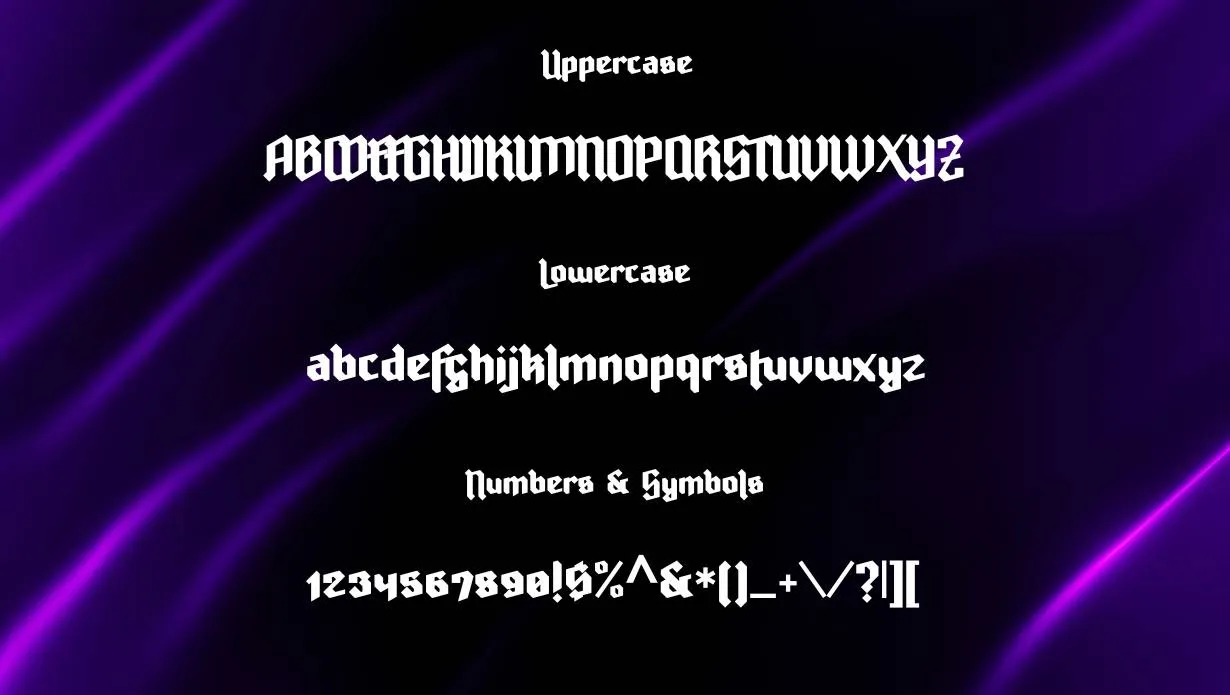
Ravenholm font adds mystery and intrigue to your words, making it perfect for creative writing projects or enchanting storybook covers.
The font’s weight is subtle, creating a mysterious aura, and its gracefully proportioned width adds an elegant touch to your text. Let Ravenholm be the storyteller, guiding your words into a captivating and enigmatic tale that leaves your audience curious and engaged.